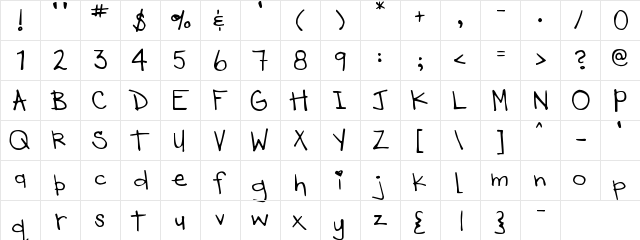
DJB HEART OF DIXI Regular
Design Context for DJB HEART OF DIXI Typeface
DJB HEART OF DIXI is a composed and adaptable typeface that performs quietly and consistently across a wide range of design contexts.